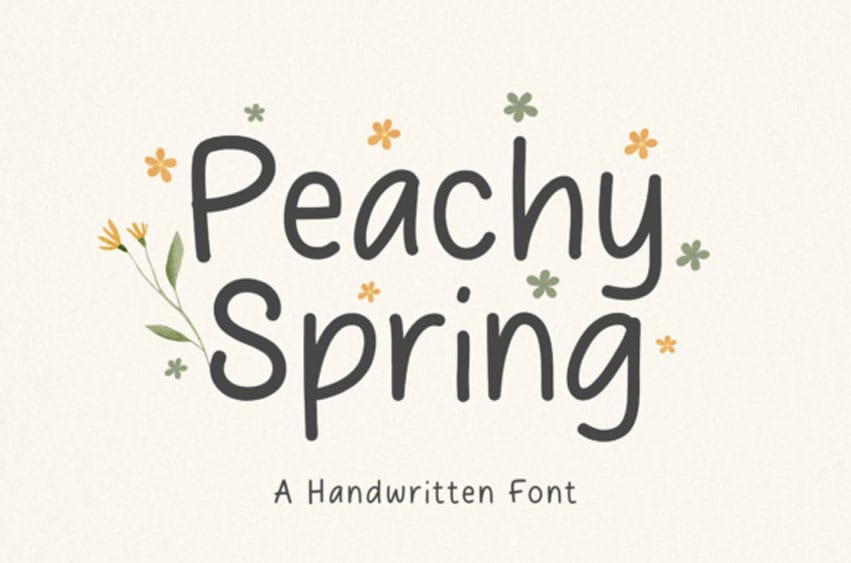
Peachy Spring Font: Welcome the fresh breeze of spring with Peachy Spring, a delightful handwritten font that radiates warmth and whimsy. With its playful curves and natural flow, this font is perfect for adding a touch of joy to your projects, whether you’re crafting invitations, branding, or heartfelt quotes.
Peachy Spring brings an effortless charm to any design. Let your creativity blossom with this cheerful and friendly typeface!